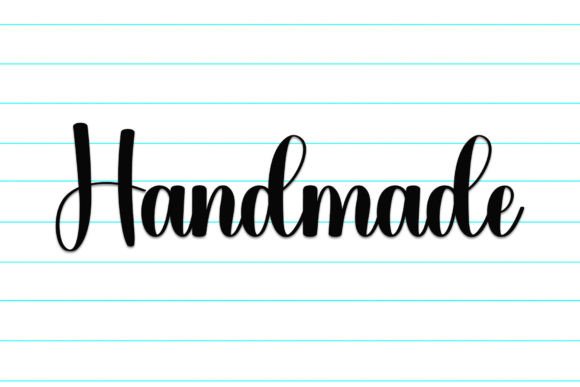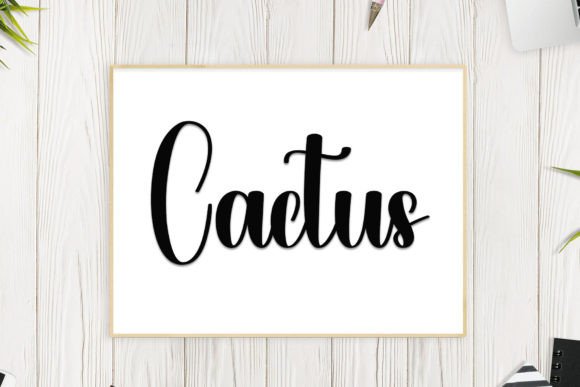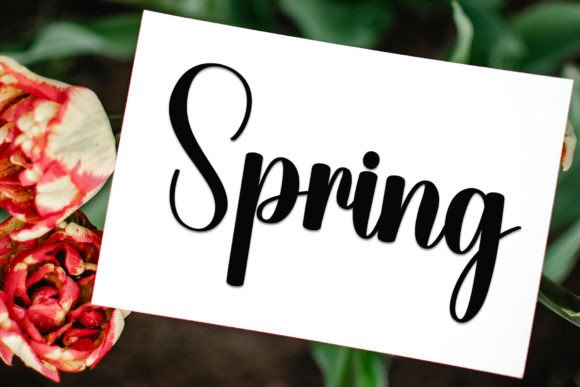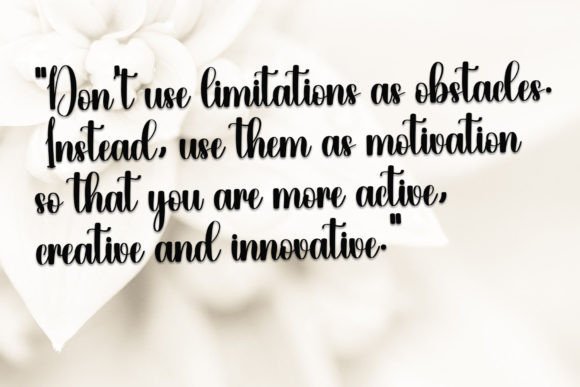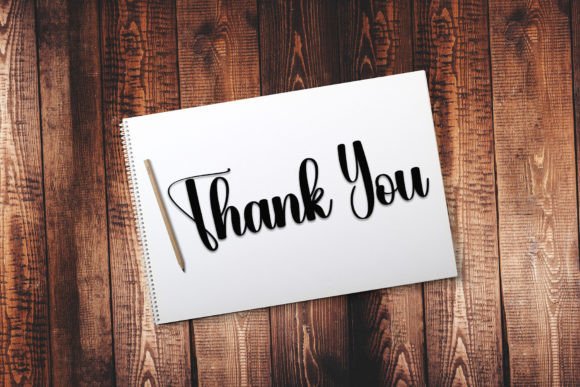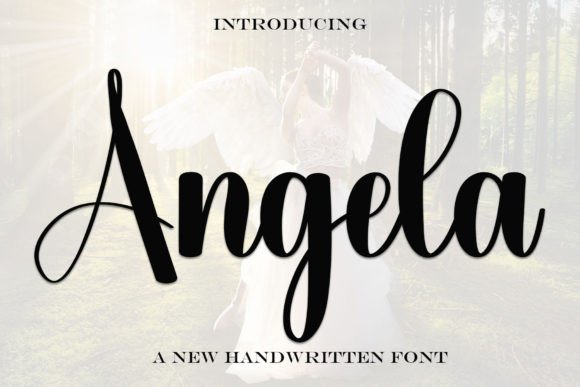
Discover the Elegance of Angela Font: A Timeless Handwritten Script
Are you on the hunt for a font that exudes elegance, sophistication, and a touch of timeless charm? Look no further than Angela Font, a beautiful handwritten script that’s perfect for a wide range of design projects. With its incredibly distinct and stylish aesthetic, Angela Font is sure to capture your heart and inspire your creativity.
What is Angela Font?
Angela Font is a meticulously crafted handwritten font that’s characterized by its elegant touch. Each letter is carefully designed to convey a sense of refinement and poise, making it an ideal choice for designers and crafters who want to add a touch of sophistication to their work. Whether you’re creating a logo, branding materials, or simply a social media post, Angela Font is the perfect choice for anyone looking to elevate their design.
The Unique Features of Angela Font
So, what sets Angela Font apart from other fonts? Here are just a few of its unique features:
- Elegant and Refined: Angela Font boasts an incredibly elegant and refined aesthetic that’s perfect for high-end designs.
- Handwritten with Love: Each letter is carefully handwritten to give the font a personal and authentic feel.
- Timeless Style: Angela Font’s classic design ensures that it will never go out of style, making it a great investment for designers and crafters.
- Distinct and Readable: The font’s unique style is both distinct and highly readable, making it perfect for a wide range of applications.
Why Choose Angela Font?
With so many fonts to choose from, why should you choose Angela Font for your next project? Here are just a few compelling reasons:
- Versatility: Angela Font is incredibly versatile and can be used for a wide range of design projects, from logos and branding materials to social media posts and more.
- Emotional Connection: The font’s elegant and refined aesthetic helps to create an emotional connection with your audience, making it perfect for designs that require a personal touch.
- Easy to Read: Angela Font is highly readable, even at small sizes, making it perfect for designs that require a lot of text.
- Unique Style: The font’s unique style ensures that your design will stand out from the crowd and grab attention.
How to Use Angela Font in Your Designs
Using Angela Font in your designs is easy! Here are a few tips to get you started:
- Pair with Other Fonts: Angela Font pairs perfectly with other fonts, so don’t be afraid to experiment with different combinations.
- Use for Headings and Titles: The font’s elegant aesthetic makes it perfect for headings and titles, adding a touch of sophistication to your design.
- Add a Personal Touch: Use Angela Font to add a personal touch to your design, whether you’re creating a logo, social media post, or branding materials.
In conclusion, Angela Font is a beautiful handwritten script that’s perfect for designers and crafters who want to add a touch of elegance and sophistication to their work. With its incredibly distinct and timeless style, Angela Font is sure to capture your heart and inspire your creativity. So why wait? Fall in love with Angela Font and use it to create spectacular designs that will leave a lasting impression!